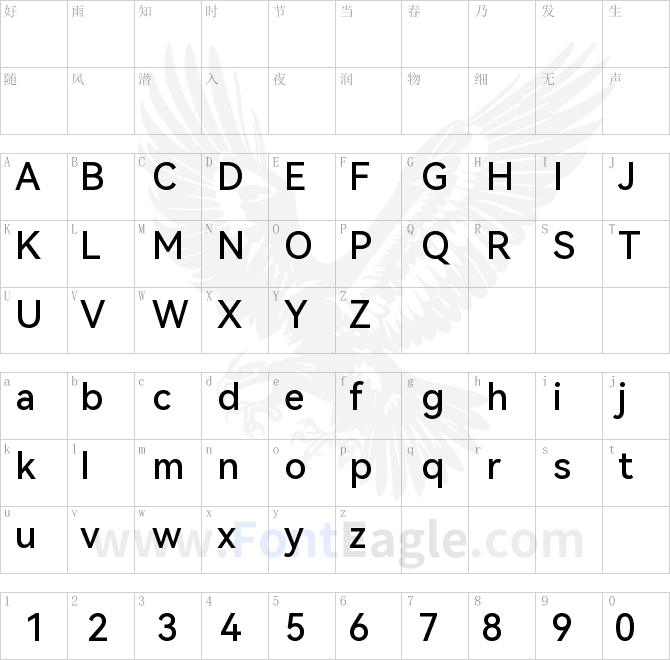
HarmonyOS_Sans_Medium is a great font, widely used in graphic design, single-page menu design, poster design and other fields, and is deeply loved by designers.HarmonyOS_Sans_Medium download.